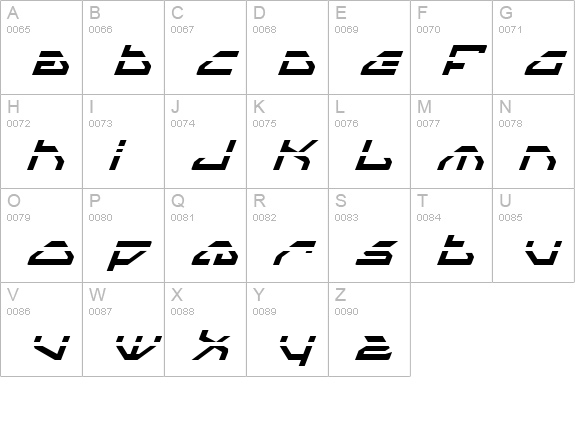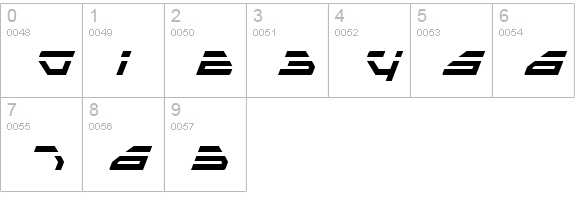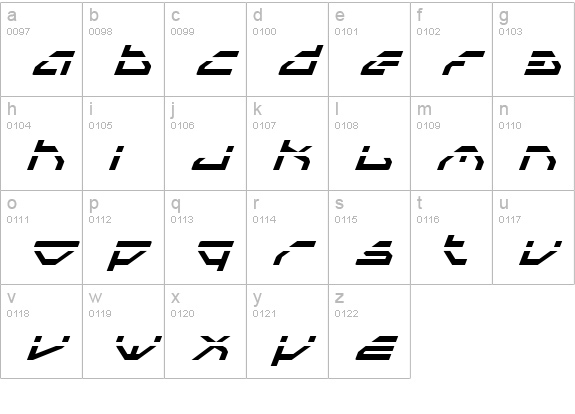
Spylord Laser Italic is a distinctive, italic variant in the Spylord typeface family \xE2\x80\x94 well suited to design and typography projects.
Spylord Laser Italic is a captivating and dynamic font that exudes a sense of mystery and intrigue. With its sleek and futuristic design, this font is perfect for adding a touch of espionage to any project. Each letter is meticulously crafted with laser precision, giving it a unique and edgy look. The laser-like strokes of this font create a sense of movement and energy, making it ideal for headlines, titles, and logos that need to make a powerful impact. Its italic style adds a touch of elegance and sophistication, making it perfect for high-end design projects. What sets Spylord Laser Italic apart is not only its stunning aesthetics but also the fact that it is completely free to download. This means that designers, artists, and enthusiasts alike can access this extraordinary font without any cost. Simply visit FontsMarket.com and unleash your creative potential with this amazing font. Whether you're working on a spy-themed poster, a futuristic website, or a thrilling book cover, Spylord Laser Italic will undoubtedly take your design to the next level. Its bold and striking appearance will capture the attention of viewers and leave a lasting impression. So why wait? Download Spylord Laser Italic today from FontsMarket.com and embark on an exciting journey of creativity. Let this font be your secret weapon in creating visually stunning and captivating designs that will leave everyone in awe.